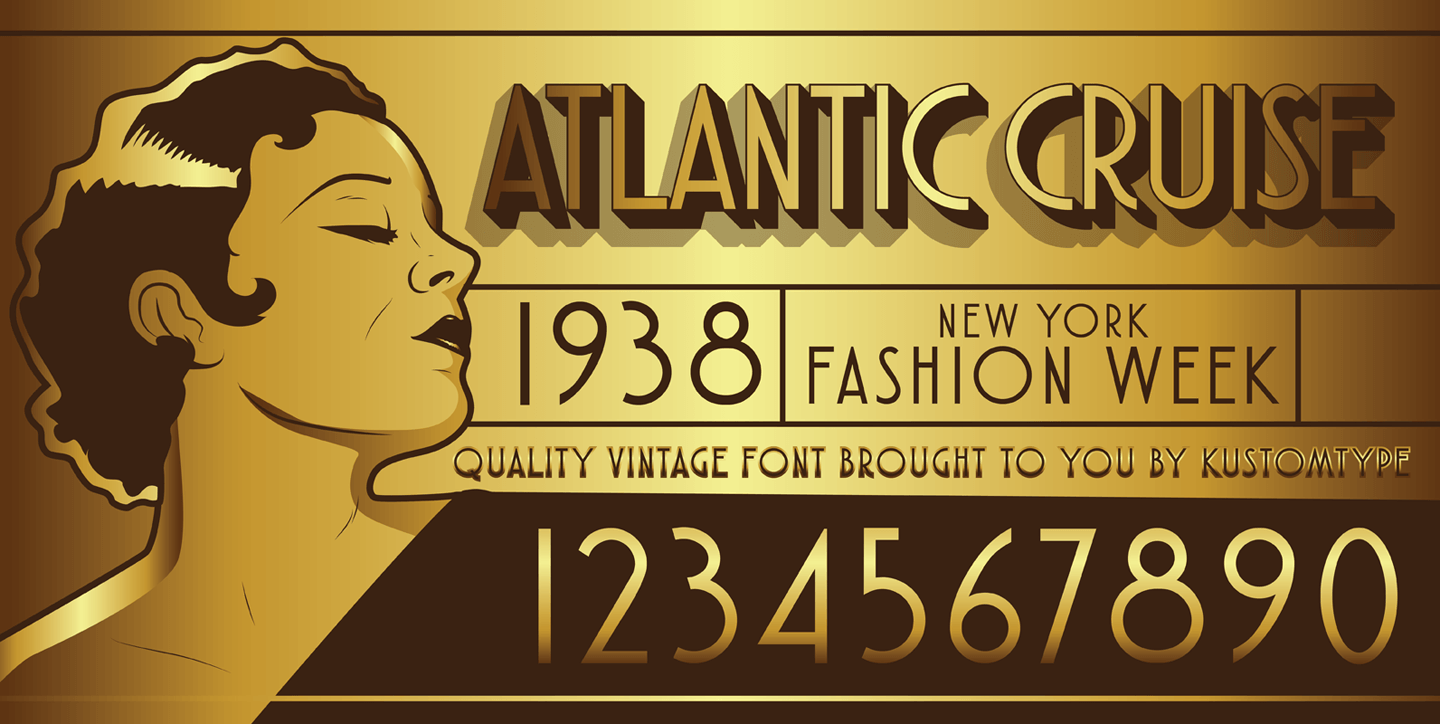
Atlantic Cruise Font . Use the text generator tool below to preview atlantic cruise font, and create. Web kustomtype’s “atlantic cruise” font is one of the fonts that was used in the 50’s for travel and cruise posters.
Thank you for the donations and keeping me alive! Web the ‘atlantic cruise’ font is a masterpiece that captures the essence of the midcentury aesthetic. Web kustomtype’s “atlantic cruise” font is one of the fonts that was used in the 50’s for travel and cruise posters.
Use the text generator tool below to preview atlantic cruise font, and create. Thank you for the donations and keeping me alive! Web kustomtype’s “atlantic cruise” font is one of the fonts that was used in the 50’s for travel and cruise posters. Web kustomtype’s “atlantic cruise” font is one of the fonts that was used in the 50’s for travel and cruise posters.
Atlantic Cruise Font - Web kustomtype’s “atlantic cruise” font is one of the fonts that was used in the 50’s for travel and cruise posters. Web kustomtype’s “atlantic cruise” font is one of the fonts that was used in the 50’s for travel and cruise posters. Use the text generator tool below to preview atlantic cruise font, and create. Web the ‘atlantic cruise’ font.
Atlantic Cruise Font - Web kustomtype’s “atlantic cruise” font is one of the fonts that was used in the 50’s for travel and cruise posters. Kustomtypes atlantic cruise font is one of. Atlantic cruise is the perfect font for all your fun designs. Kustomtypes atlantic cruise font is one of the fonts. About atlantic cruise font family.
Atlantic Cruise Font - Use the text generator tool below to preview atlantic cruise font, and create. The “atlantic cruise” is the titanic of kustomtype’s fonts. Web kustomtype’s “atlantic cruise” font is one of the fonts that was used in the 50’s for travel and cruise posters. Web kustomtype’s “atlantic cruise” font is one of the fonts that was used in the 50’s for.
Atlantic Cruise Font - Thank you for the donations and keeping me alive! The “atlantic cruise” is the titanic of kustomtype’s fonts. Atlantic cruise is the perfect font for all your fun designs. Use the text generator tool below to preview atlantic cruise font, and create. Crafted using a handpicked selection of letters from.
Atlantic Cruise Font - Atlantic cruise is the perfect font for all your fun designs. Kustomtypes atlantic cruise font is one of the fonts. Web change the size. The “atlantic cruise” is the titanic of kustomtype’s fonts. Thank you for the donations and keeping me alive!
Atlantic Cruise Font - Atlantic cruise is the perfect font for all your fun designs. Use the text generator tool below to preview atlantic cruise font, and create. Kustomtypes atlantic cruise font is one of the fonts. Kustomtypes atlantic cruise font is one of. Web change the size.
Atlantic Cruise Font - Crafted using a handpicked selection of letters from. Kustomtypes atlantic cruise font is one of the fonts. About atlantic cruise font family. Web kustomtype’s “atlantic cruise” font is one of the fonts that was used in the 50’s for travel and cruise posters. Web change the size.
Atlantic Cruise Font - Thank you for the donations and keeping me alive! Web change the size. Atlantic cruise is the perfect font for all your fun designs. Web the ‘atlantic cruise’ font is a masterpiece that captures the essence of the midcentury aesthetic. About atlantic cruise font family.
Atlantic Cruise Font - Crafted using a handpicked selection of letters from. Kustomtypes atlantic cruise font is one of the fonts. Atlantic cruise is the perfect font for all your fun designs. Web kustomtype’s “atlantic cruise” font is one of the fonts that was used in the 50’s for travel and cruise posters. Thank you for the donations and keeping me alive!
Atlantic Cruise Font - Web the ‘atlantic cruise’ font is a masterpiece that captures the essence of the midcentury aesthetic. Web kustomtype’s “atlantic cruise” font is one of the fonts that was used in the 50’s for travel and cruise posters. Use the text generator tool below to preview atlantic cruise font, and create. The “atlantic cruise” is the titanic of kustomtype’s fonts. Thank.
Atlantic Cruise Font - About atlantic cruise font family. The “atlantic cruise” is the titanic of kustomtype’s fonts. Web kustomtype’s “atlantic cruise” font is one of the fonts that was used in the 50’s for travel and cruise posters. Kustomtypes atlantic cruise font is one of. Thank you for the donations and keeping me alive!
Atlantic Cruise Font - Web kustomtype’s “atlantic cruise” font is one of the fonts that was used in the 50’s for travel and cruise posters. Thank you for the donations and keeping me alive! Web kustomtype’s “atlantic cruise” font is one of the fonts that was used in the 50’s for travel and cruise posters. The “atlantic cruise” is the titanic of kustomtype’s fonts..
Atlantic Cruise Font - Web kustomtype’s “atlantic cruise” font is one of the fonts that was used in the 50’s for travel and cruise posters. Web change the size. Use the text generator tool below to preview atlantic cruise font, and create. Web the ‘atlantic cruise’ font is a masterpiece that captures the essence of the midcentury aesthetic. Web kustomtype’s “atlantic cruise” font is.